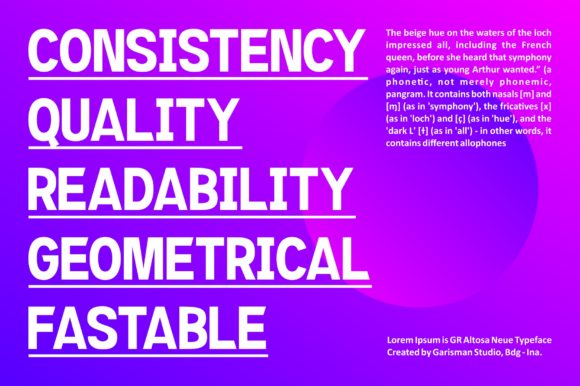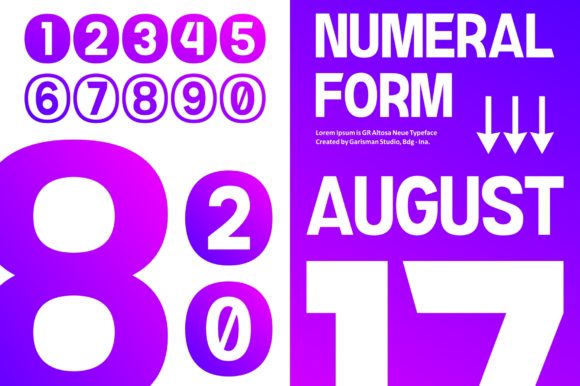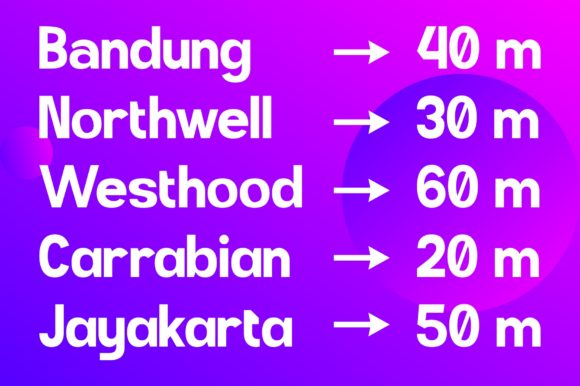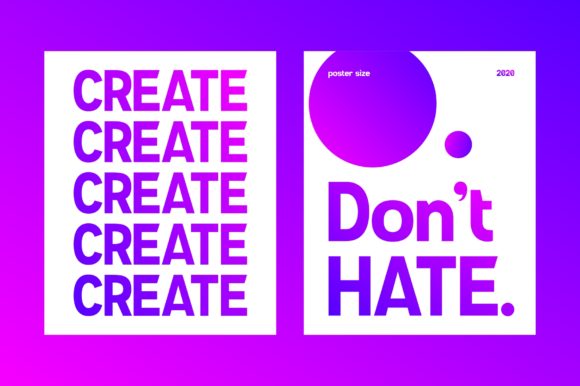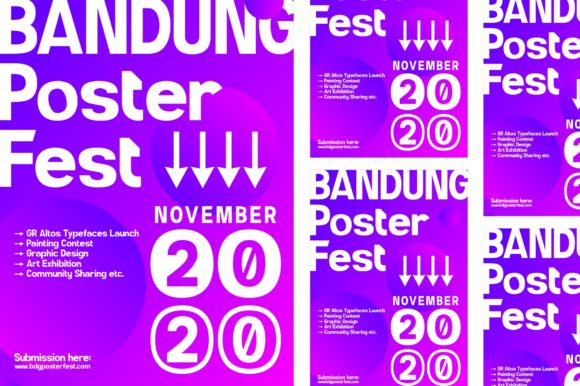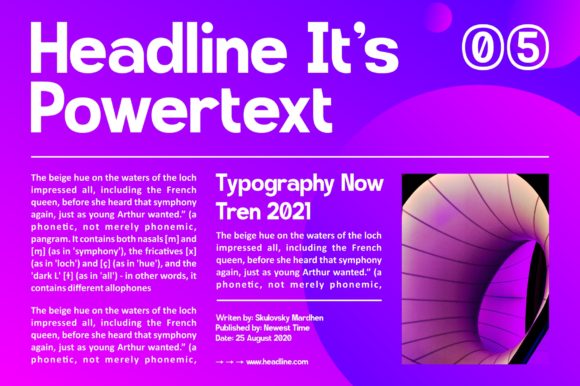
Find Your Perfect Match: Introducing the Altosa Font
Have you ever stared at a blank page, surrounded by scattered ideas and notes, desperately searching for the perfect font to bring your project to life? This is a moment we’ve all been through, and it’s exactly why we’re excited to introduce you to the Altosa Font.
This sleek and modern sans serif font is designed to seamlessly blend into a wide range of creative projects, from editorial designs to branding and beyond. Its minimalistic style makes it incredibly versatile, allowing you to experiment with different combinations and styles without overpowering your content.
For designers, the Altosa Font is a valuable addition to their toolkit, offering a clean and professional look that’s sure to elevate their projects and leave a lasting impression on their audience. Whether you’re a seasoned pro or just starting out, incorporating the Altosa Font into your creative workflow can be a game-changer.
Altosa Font Key Features
- Font Family: Altosa is a sans-serif font family designed for modern and clean typography.
- Font Size: Available in 6 font weights, ranging from Thin (100) to Black (900).
- Resolution: Optimized for screen resolution, with clear readability at 72-144 dpi.
- Unique Characteristics: Altosa features a distinctive x-height and a subtle, yet effective, contrast between thick and thin lines, making it ideal for digital interfaces and publications.
Altosa Font Review
Overall, I think Altosa Font is a nice addition to any designer’s toolbox. Here are some things that really stand out:
- ✨ Elegant and modern design: The font has a sophisticated feel that’s perfect for high-end branding and luxury designs.
- ✨ Wide range of languages supported: Altosa Font is available in a variety of languages, making it a great choice for global brands and companies.
- ✨ Highly customizable: The font has a lot of customization options, allowing designers to fine-tune the look and feel to suit their specific needs.
That being said, there are a few limitations to consider:
- ⚠️ Limited bold and italic variations: While the font has a lot of customization options, the bold and italic variations are somewhat limited, which may not be ideal for certain design projects.
- ⚠️ Not suitable for body text: Due to its elegant and modern design, Altosa Font may not be the best choice for body text, as it can be difficult to read at smaller font sizes.
Overall, I think Altosa Font is a solid choice for designers looking for a high-end, modern font. While it may have some limitations, its elegant design and wide range of customization options make it a great addition to any designer’s toolbox.
Getting the Most Out of Altosa Font
Altosa font is a versatile and modern font that can be used in a variety of applications. To get the most out of it, try combining it with other fonts for a unique look, or use it to create a bold and eye-catching headline.
Altosa font is commonly used in:
– Modern logos and branding materials
– Creative marketing materials, such as brochures and flyers
– Digital products, such as e-books and presentations
– Social media graphics and ads
Alternatives to Altosa Font
Open Sans is a clean and modern sans-serif font that is highly legible and suitable for a wide range of applications. It is a great choice for designers who need a font that is easy to read and understand. Open Sans is similar to Altosa Font in terms of its modern feel, but it has a more rounded and friendly appearance.